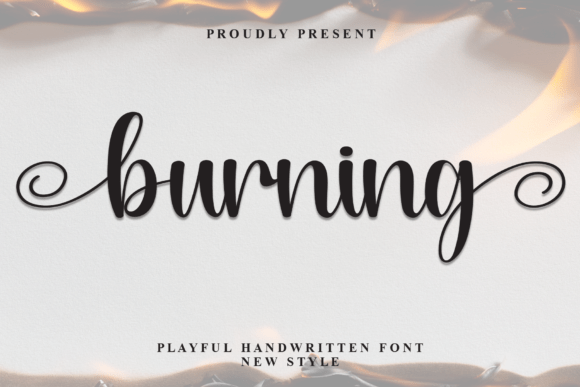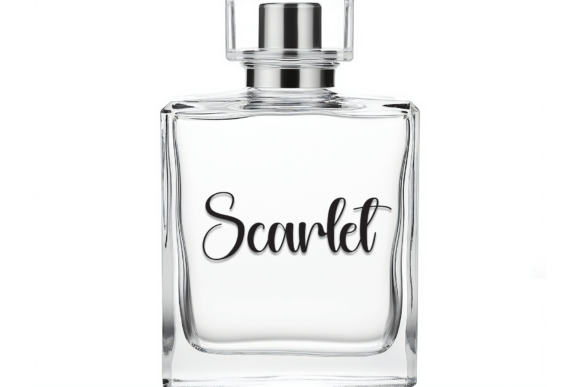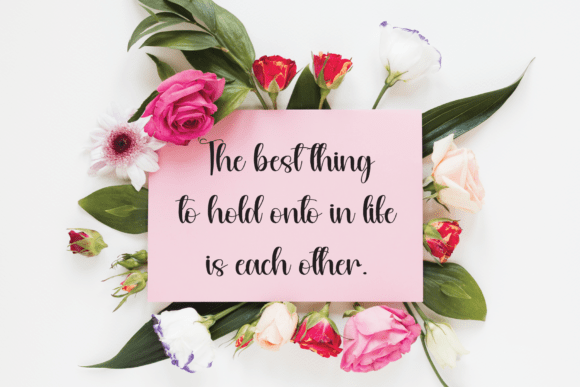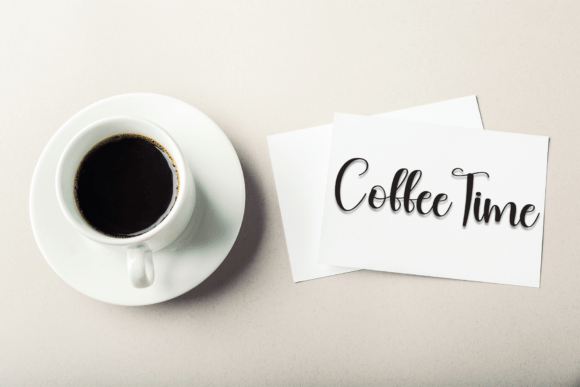
Burning Font
About the Burning Font
Explore the possibilities with Burning Font, a font that offers both beauty and functionality. Elegant and expressive, this script font flows with effortless beauty. Featuring graceful curves and smooth connections, it’s ideal for adding a sophisticated, handwritten feel to wedding invitations, logos, branding projects, and social media graphics. Whether you’re designing something romantic or refined, this script font brings a timeless charm to any design.
Burning Font’s elegant, expressive nature makes it perfect for headlines, short paragraphs, and branding elements where a touch of sophistication is desired. It excels in logo design, wedding stationery, and short-form social media content. However, its script style is less suitable for large blocks of body text or UI elements where readability is paramount. Avoid using it for lengthy paragraphs or applications requiring high legibility.
To complement its graceful curves, pair Burning Font with a clean sans-serif like Montserrat for a modern feel, or a classic serif such as Garamond for a more traditional aesthetic. For a touch of contrast, a geometric sans-serif like Futura can add a contemporary edge, while a playful handwritten sans-serif provides a less formal yet complementary feel.
Its overall personality is best described as sophisticated and romantic, lending itself to brands and projects that prioritize elegance and a timeless quality. Consider it for luxury goods, high-end services, or projects emphasizing refinement and charm.